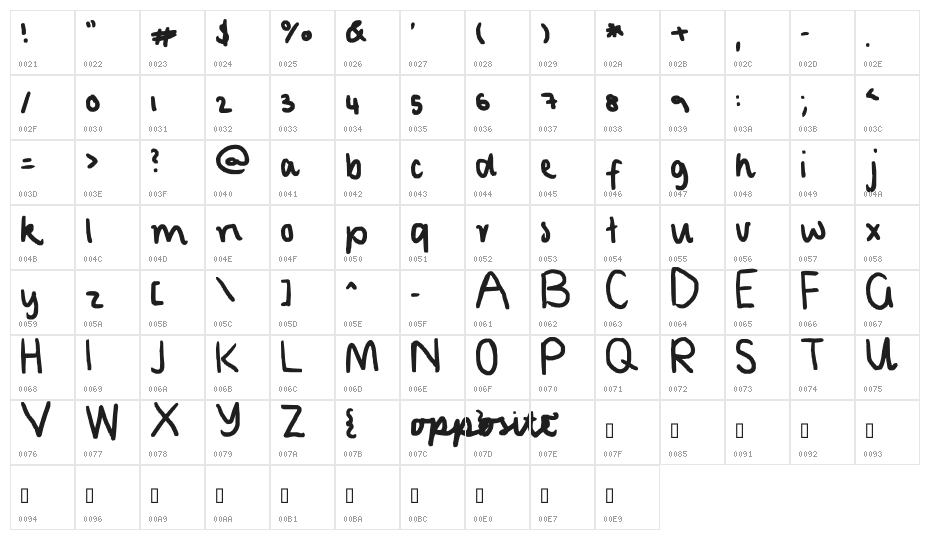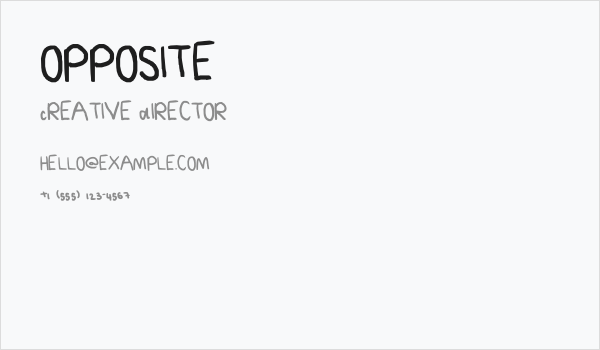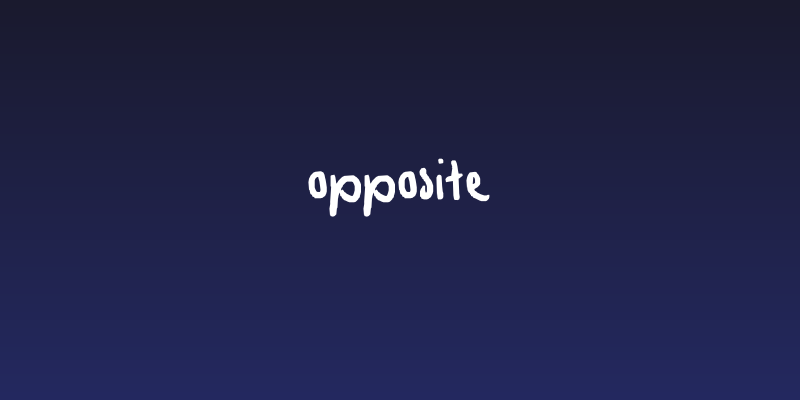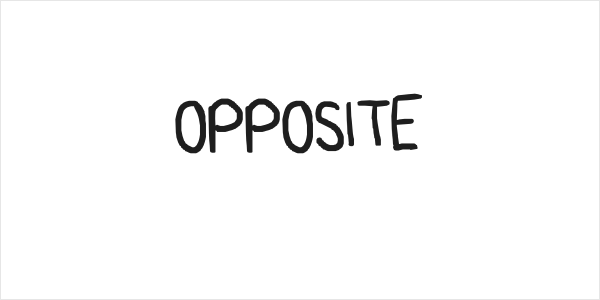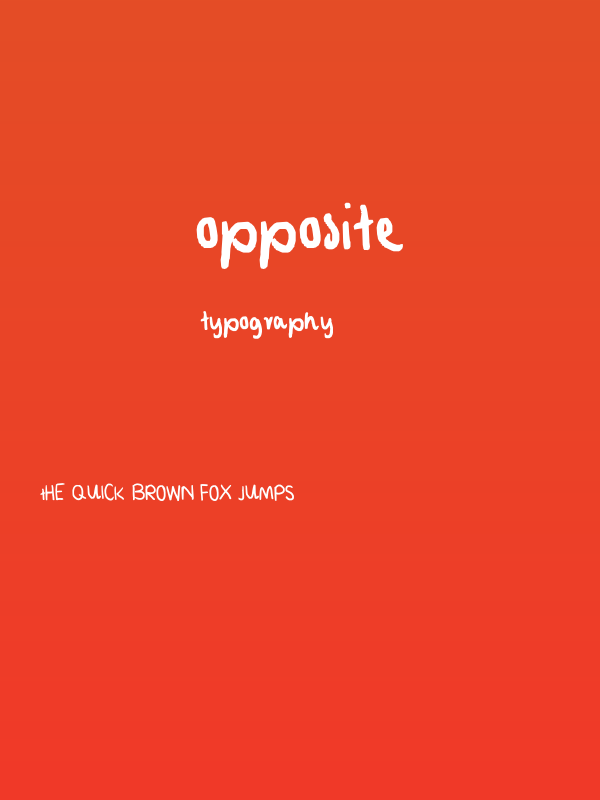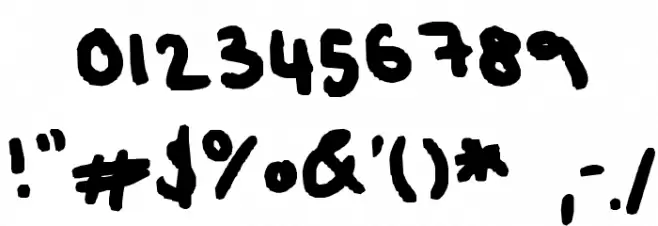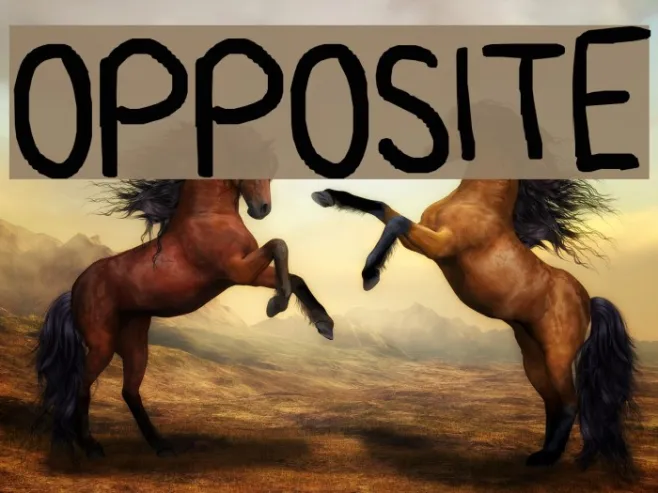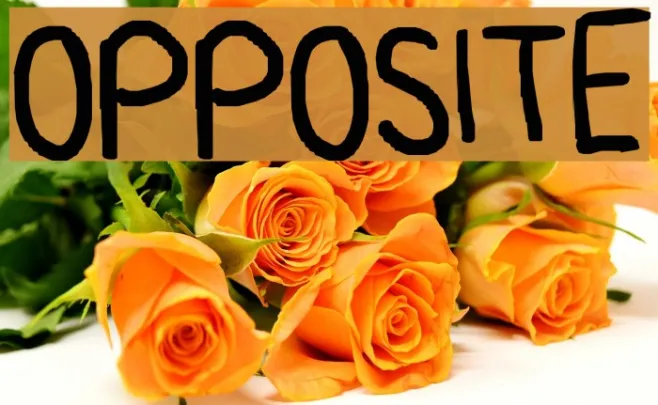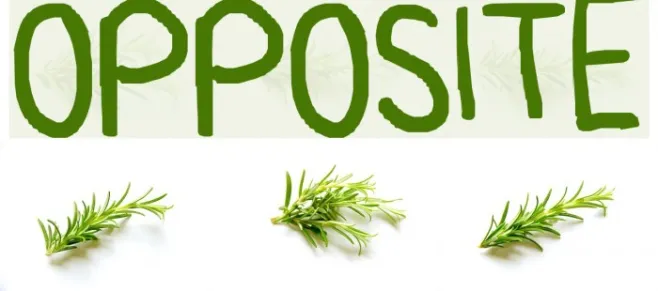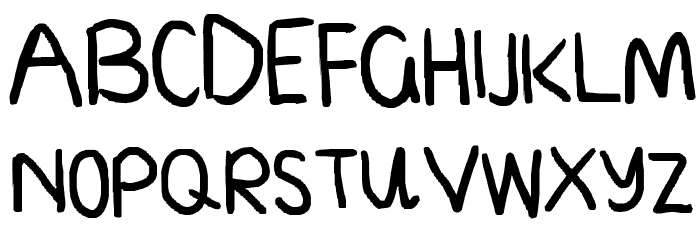
opposite Font
opposite Description
This font features a playful and informal handwritten style, characterized by its irregular and slightly uneven strokes. The letters have a casual and friendly appearance, with rounded edges and a slightly tilted orientation. The uppercase and lowercase letters maintain a consistent style, with the lowercase letters being slightly smaller and more compact. The numbers and special characters follow the same informal aesthetic, adding to the overall cohesive look. This font exudes a sense of approachability and creativity, making it suitable for projects that require a personal touch.
| Overall Style | Casual, Playful |
| Use Case | Headlines, Informal text, Creative projects |
| Proposed Projects | Ideal for children's books, greeting cards, personal blogs, and creative projects that require a casual and approachable feel. |